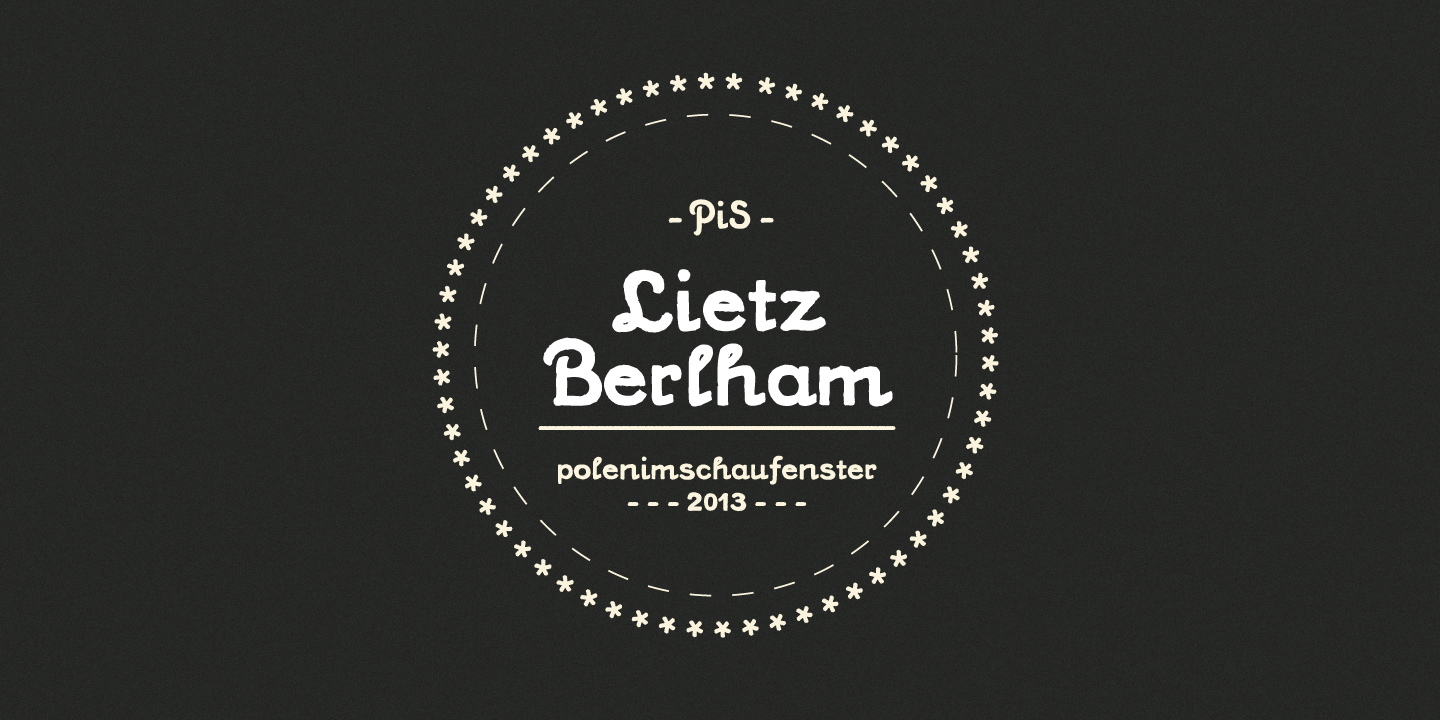
PiS LIETZ Berlham Font is ideal for experimental design projects, avant-garde art exhibitions, creative agency branding, modern architectural signage, contemporary fashion campaigns, innovative tech startups, artistic poster designs, cutting-edge web interfaces, progressive cultural institutions, and forward-thinking editorial layouts.
What makes PiS LIETZ Berlham Font exciting is its bold experimental character that pushes typographic boundaries while maintaining exceptional functionality and visual impact for contemporary design applications. This typeface features distinctive letterforms with innovative structural elements and progressive design details that challenge conventional typography while ensuring outstanding readability. The font's avant-garde personality and creative innovation make it perfect for brands seeking to project artistic leadership, design innovation, and cutting-edge creative thinking in their communications.
PiS LIETZ Berlham Font family includes various stylistic alternatives and experimental character variations that enhance its innovative appeal while providing comprehensive design flexibility. The font features unique ligatures, alternative letterforms, and progressive typographic elements that create authentic contemporary atmosphere for artistic and experimental applications.
Creative directors and innovative brands consistently select PiS LIETZ Berlham Font Free Download for projects requiring distinctive visual identity and artistic credibility. The font's experimental character excels in applications where conventional typography fails to capture the brand's innovative spirit and creative vision. Whether you're designing for contemporary art galleries, experimental fashion brands, or cutting-edge technology companies, this revolutionary typeface delivers the artistic innovation and progressive design thinking that sets your brand apart from conventional approaches while establishing authentic creative leadership.